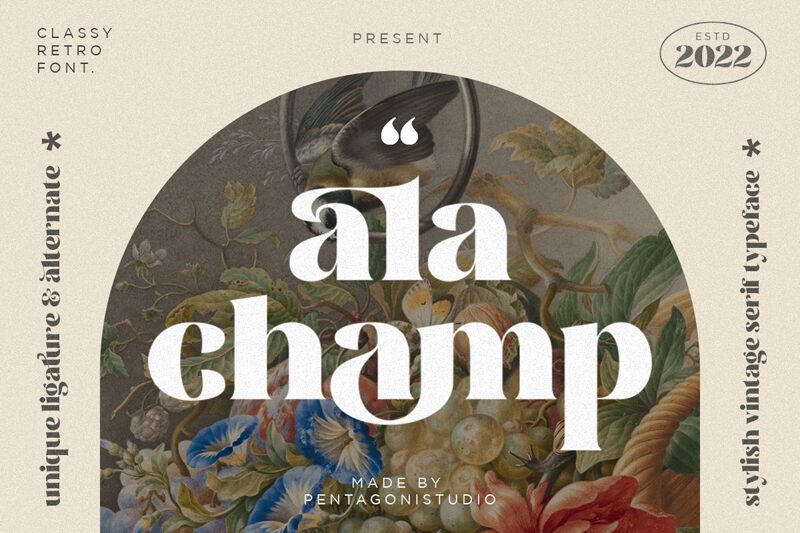
alachamp
Ala Champ, crafted by Pentagonistudio, is a serif font that commands attention with its bold character and assertive presence. The font's serifs are confidently sculpted, adding a traditional touch to its otherwise modern demeanor. Its sturdy structure conveys reliability and strength, making it an ideal choice for titles that demand prominence.
The confident strokes of Ala Champ give it a robust charm that can enhance the visual impact of any project. This font finds its groove in contexts requiring distinctiveness without compromising elegance—think book covers, editorial headlines, or branding for products that stand out in their category. Ala Champ's ability to marry classic appeal with contemporary boldness makes it versatile enough to adapt from print to digital seamlessly.